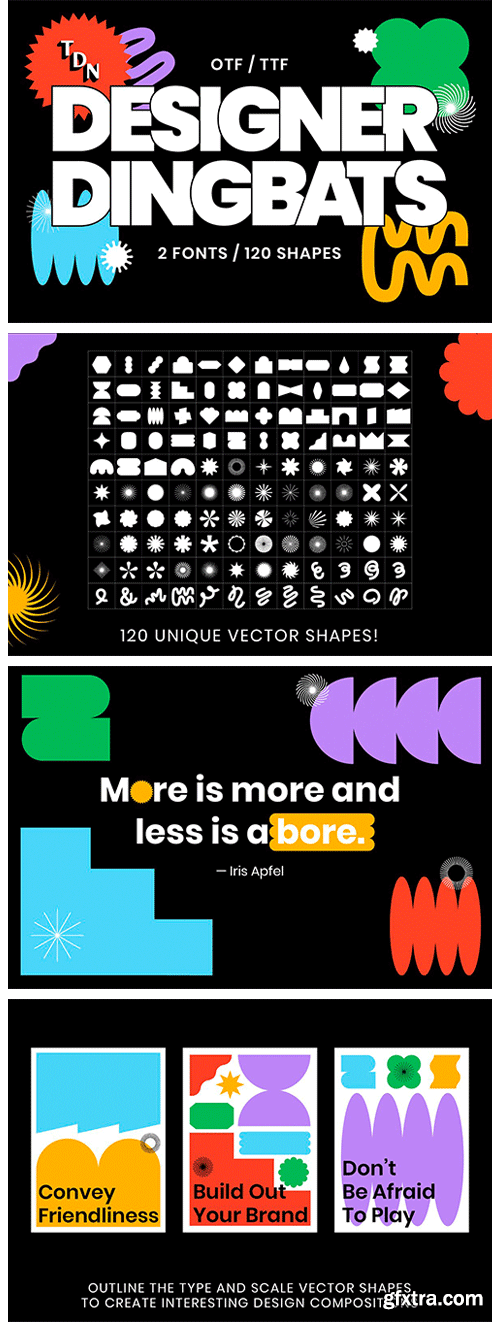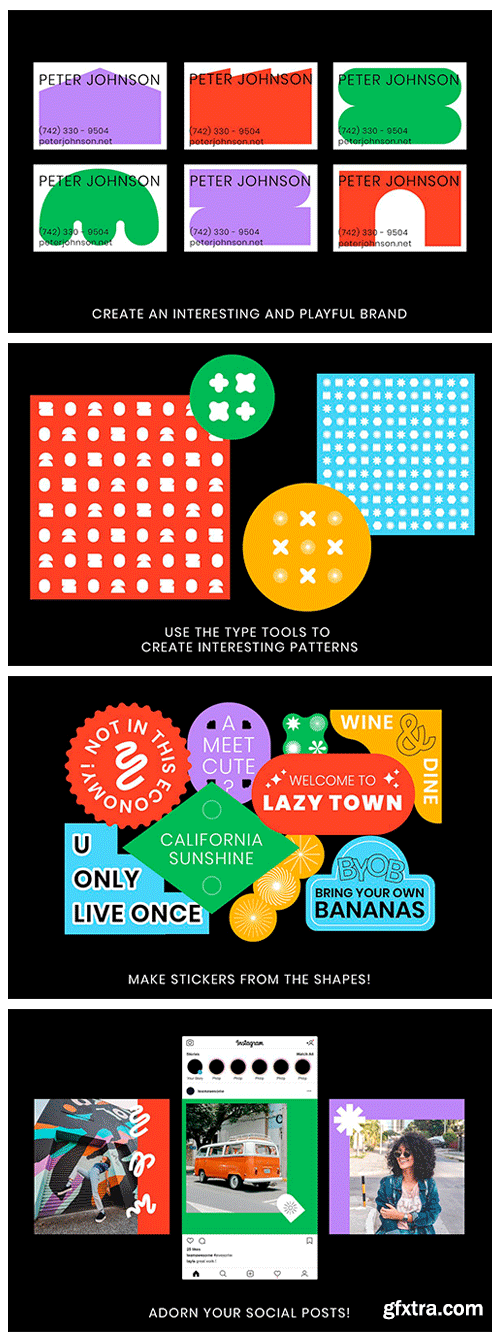
CM - Designer Dingbats - 120 Shapes! 5164303
Up your design game with 120 new shapes to add to your arsenal! Create compositions for branding, packaging, social media and more. By using the glyphs palette or simply typing, you can create patterns and easily access the shapes!v